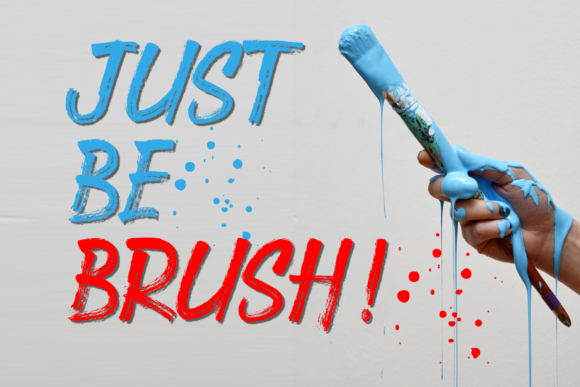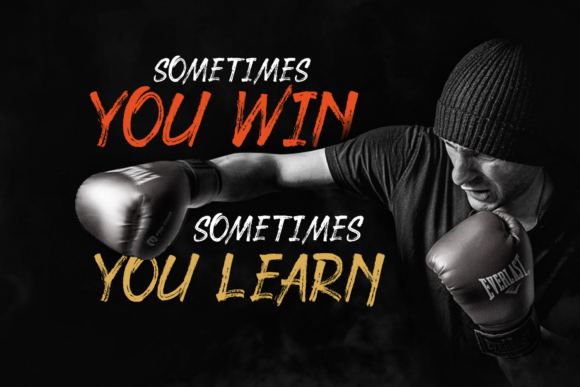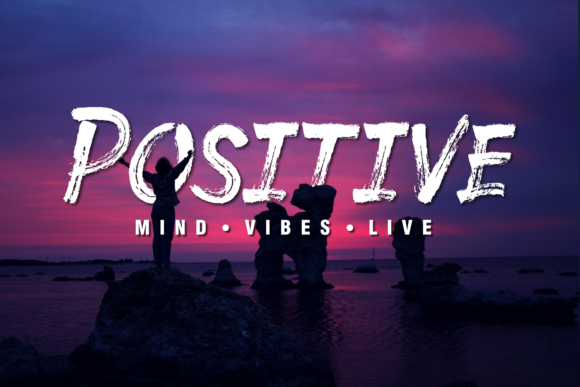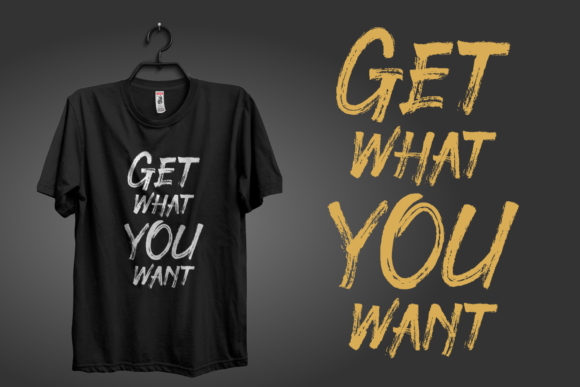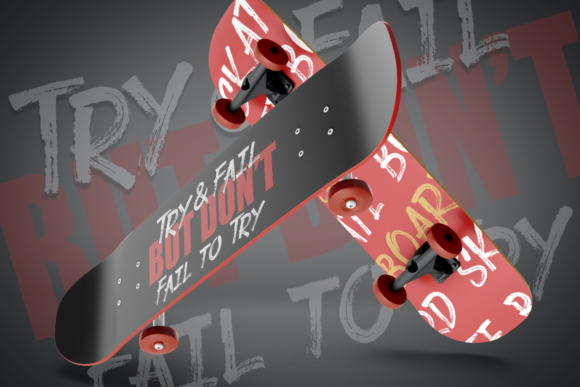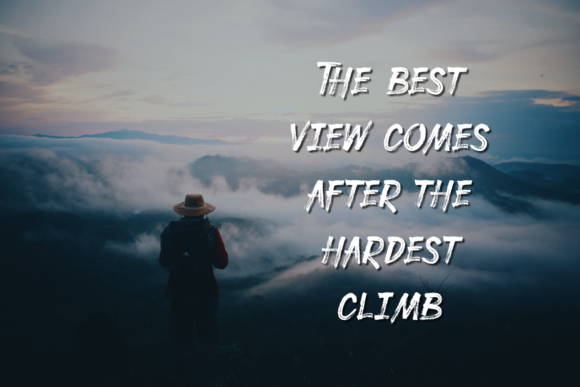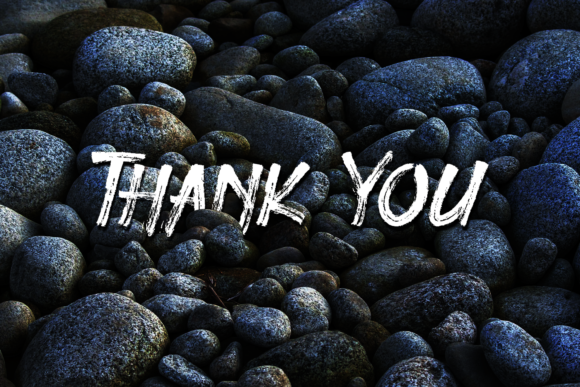
Under Rock Font
About Under Rock Font
Under Rock is an all caps hand brush font with a natural feel. It will add an authentic, rough and adventurous feel to any creative idea!